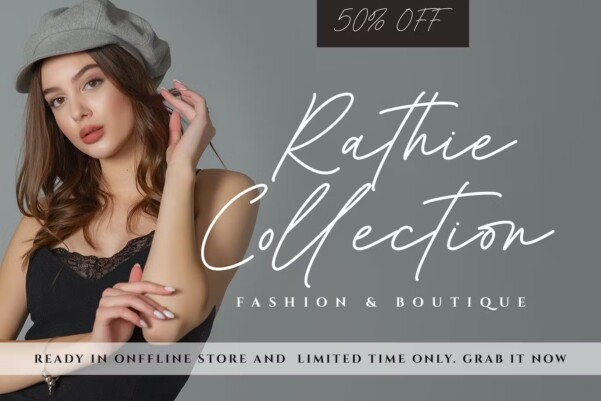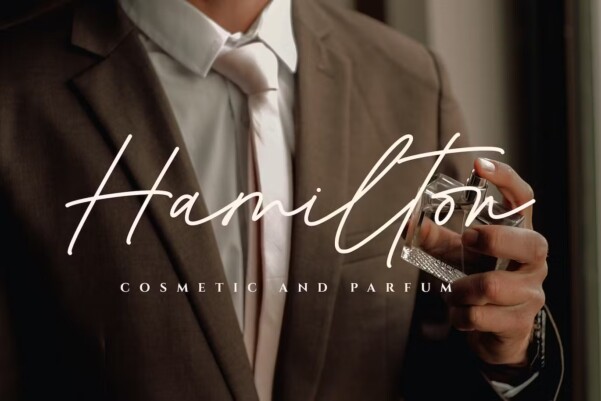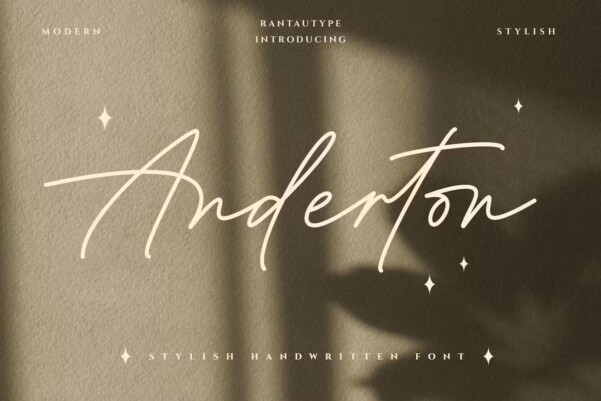
Anderton Font
Anderton Font – modern handwritten style which can be interpreted professionally. we keep this font looks elegant, luxury, premium, modern, readable, stylish, catchy and easy to use.
Anderton – is the great choice for watermark on photography, branding, wedding event, signature or signature logo design, quotes, album cover, magazine, business card and many other design project. Anderton here to make your work to high level!!!